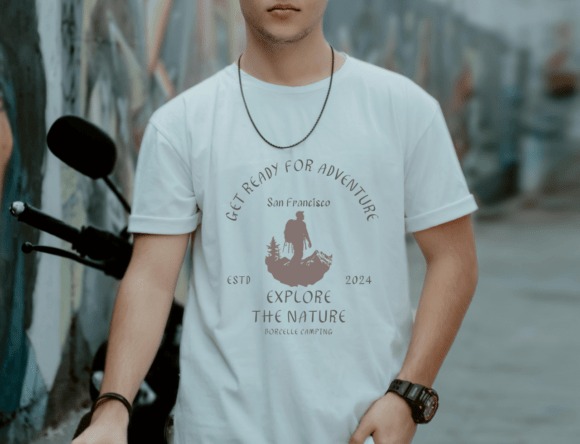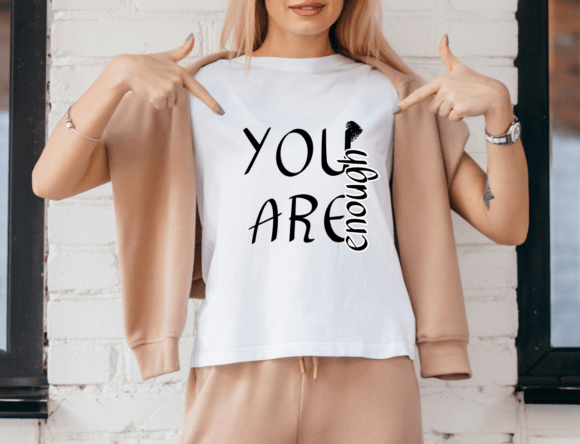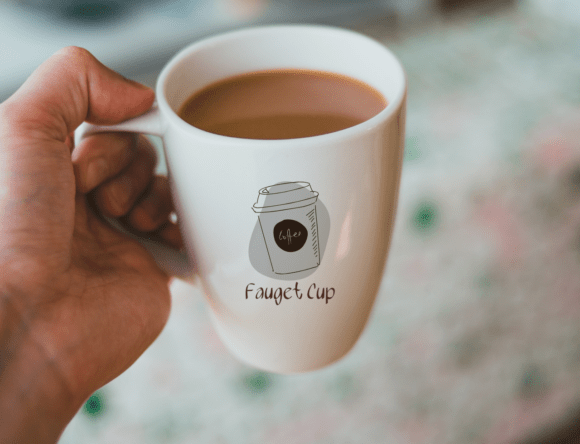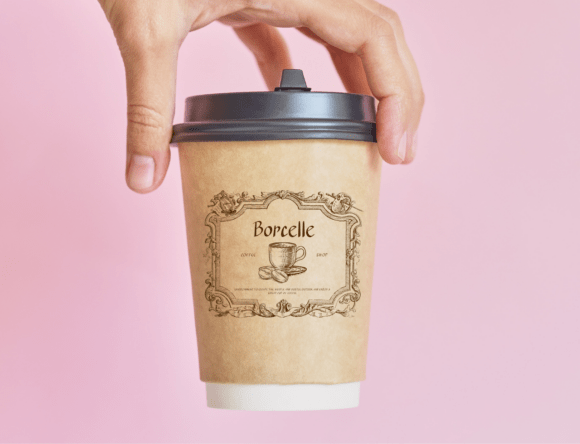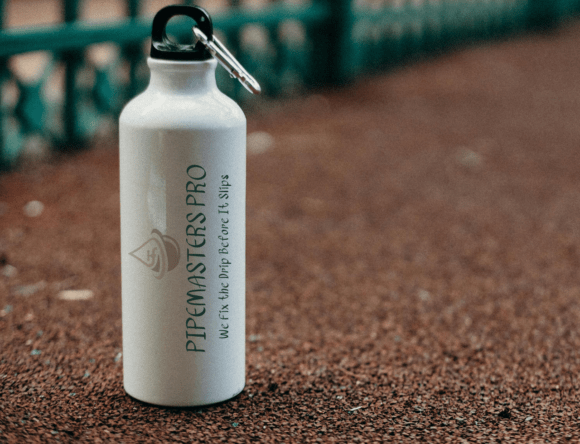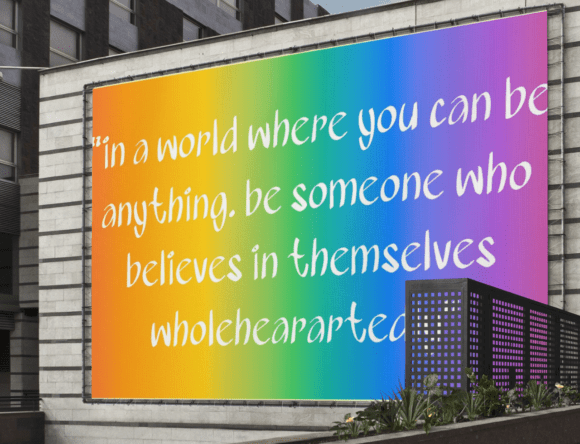
Introduction to Paulowen Font
As a designer, have you ever found yourself stuck in a creative rut, searching for the perfect font to bring your project to life? You’ve spent hours scouring through fonts, trying to find that one unique element that will set your work apart from the rest. Well, your search is over. Welcome to the world of Paulowen Font – a game-changing design resource that will revolutionize the way you approach your creative projects.
With its distinctive personality and high-quality design, the Paulowen Font is the perfect addition to any project, whether it’s a personal letter, a wedding invitation, or a logo design. Its versatility and unique edge make it a valuable asset for designers looking to add a touch of originality to their work. And the best part? You can download the Paulowen Font for free, giving you the freedom to experiment and push the boundaries of your creativity.
Whether you’re a seasoned designer or just starting out, the Paulowen Font is an essential tool that will take your creative projects to the next level. With its transparent background and high-quality design, you can create stunning visual effects that will leave a lasting impression on your audience.
Key Features of Paulowen Font
- High-quality, professional font suitable for various creative projects, including graphic design, web design, and digital art.
- Unique, elegant design that adds a touch of sophistication to any creative project, from logos to typography-based art.
Honest Review: Paulowen Font
As a designer, I’m always on the lookout for high-quality fonts that can elevate my creative projects. The Paulowen Font caught my attention, and I’m excited to share my thoughts on it.
- High-quality design: The Paulowen Font features clean lines, elegant curves, and a unique style that sets it apart from other fonts.
- Limited character set: The font’s character set is relatively limited, which may not be suitable for projects requiring extensive text.
- Not ideal for small text: The font’s design may not be the best choice for small text sizes, as the characters can become difficult to read.
Overall, I’m impressed with the Paulowen Font’s unique design and free availability. While it has some limitations, it’s a great resource for designers working on creative projects that require a high-quality, elegant font.
Paulowen Font is a versatile design resource that can be used for a variety of creative projects, including logos, social media graphics, and marketing materials. Its high quality and transparent background make it an ideal choice for designers who want to create visually appealing and professional-looking designs.